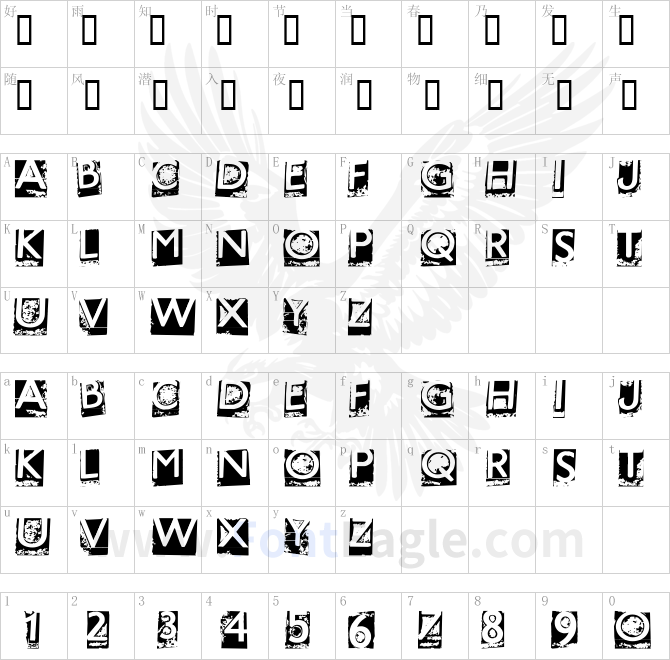
- Font name:HOTMETAL
- Font Subfamily ID:Macromedia Fontographer 4.1.5 HOTMETAL Normal
- Font Full Name:HOTMETAL Normal
- Font Version:Macromedia Fontographer 4.1.5 12/3/00
- Postscript:HOTMETALNormal